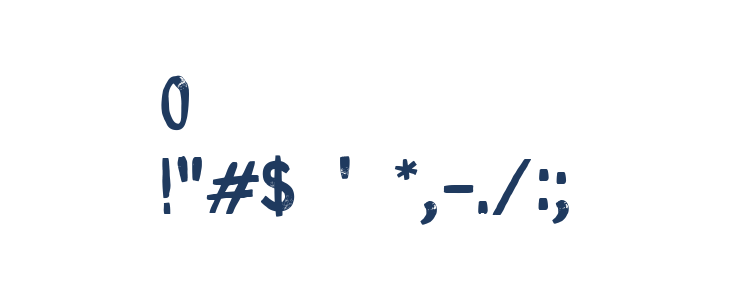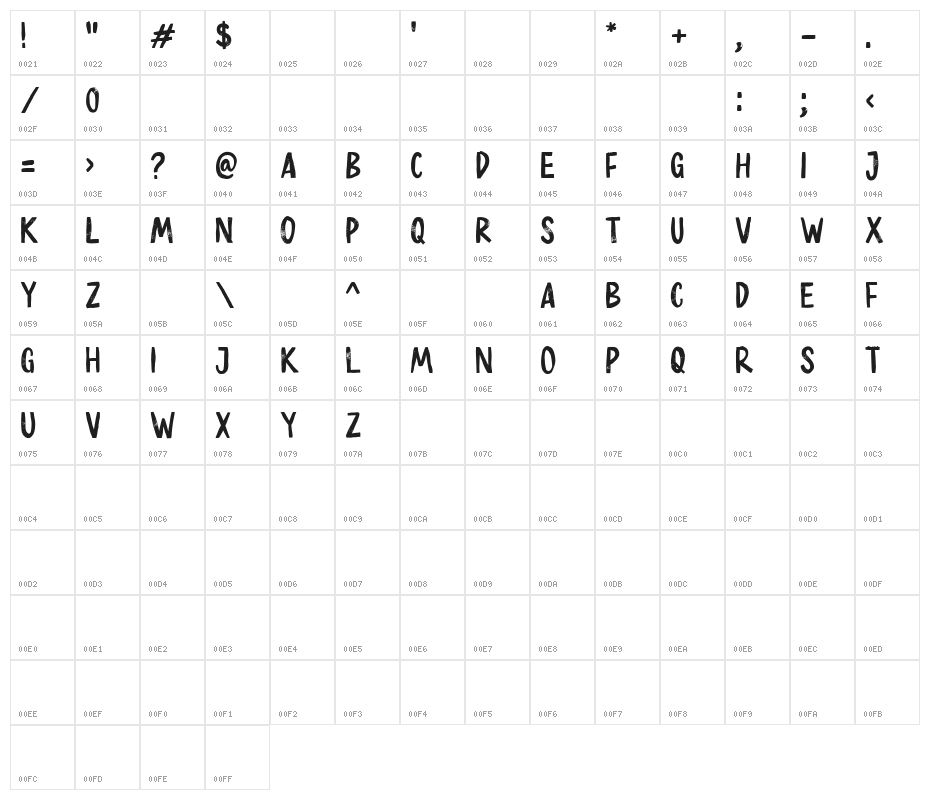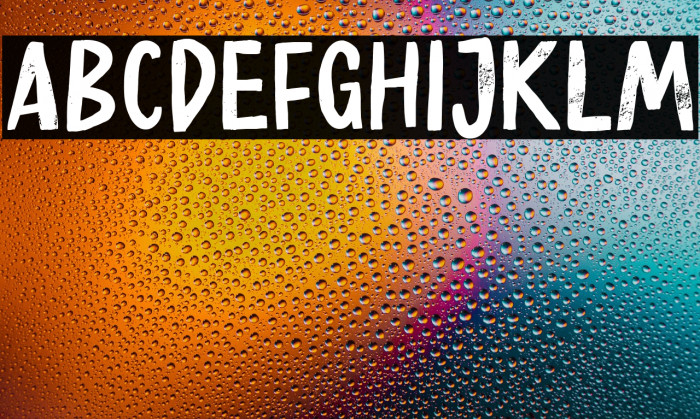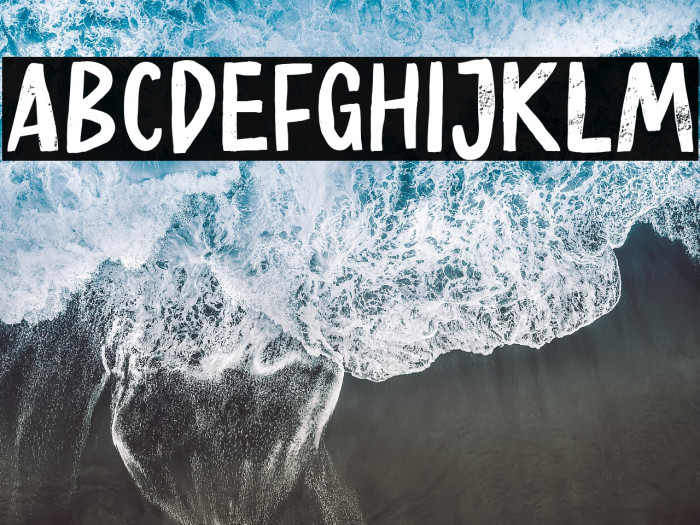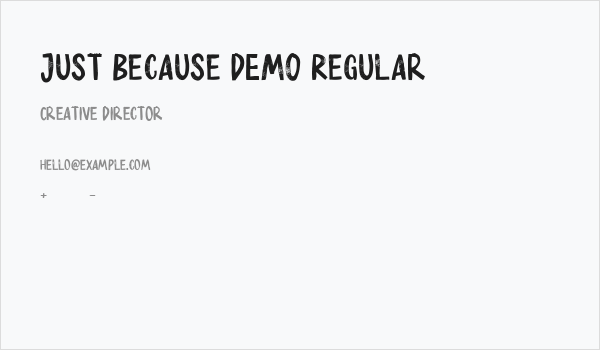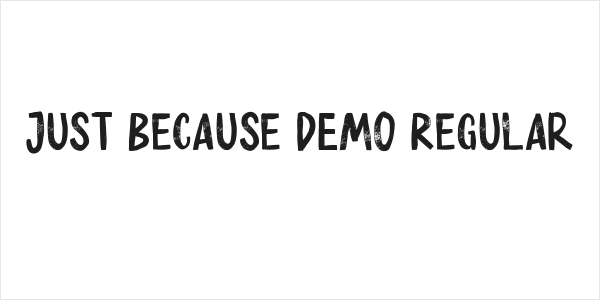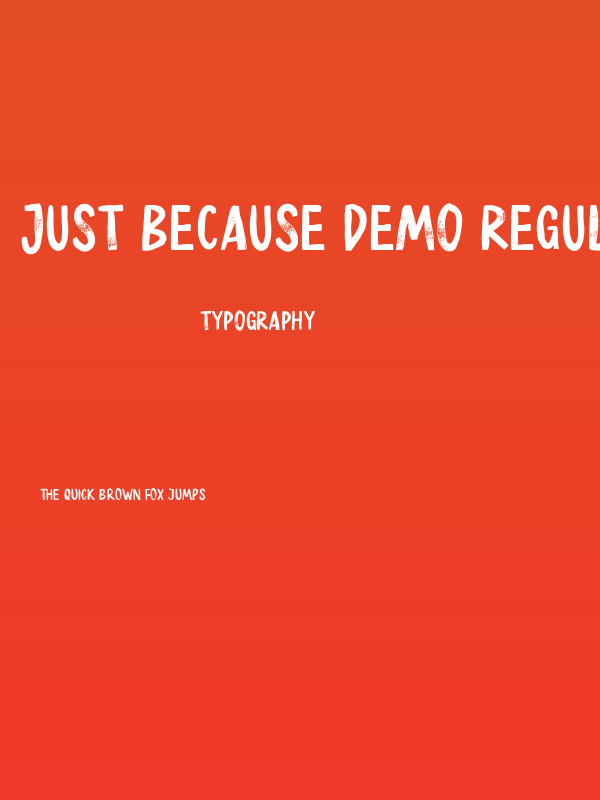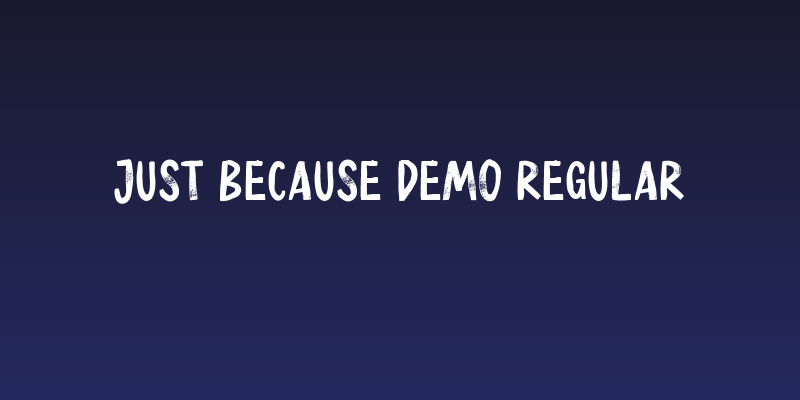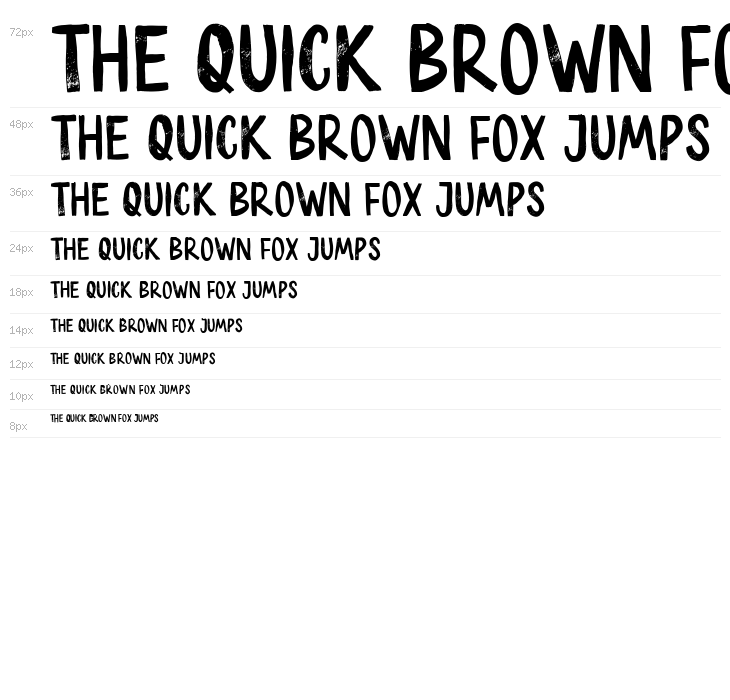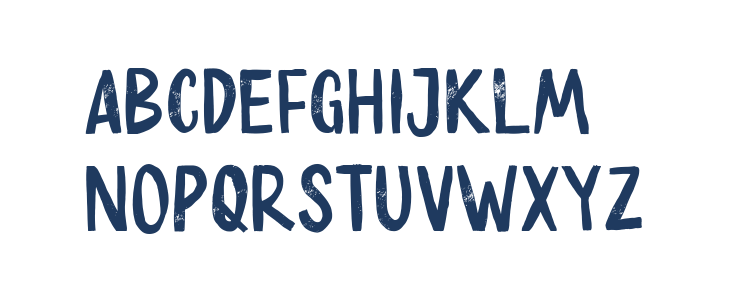
Just Because DEMO Regular Font
Just Because DEMO Regular Description
This font features a bold, hand-drawn style with a slightly distressed texture, giving it a casual and artistic feel. The characters are uppercase and lowercase with a playful, uneven baseline that adds to its informal charm. The strokes are thick and consistent, creating a strong visual impact. The font is suitable for projects that require a personal touch, such as posters, invitations, or branding that aims to convey creativity and approachability. Its unique texture and bold presence make it stand out, while the irregularities in the letterforms add character and warmth.
| Proposed Projects | Ideal for posters, invitations, branding, and creative projects. |